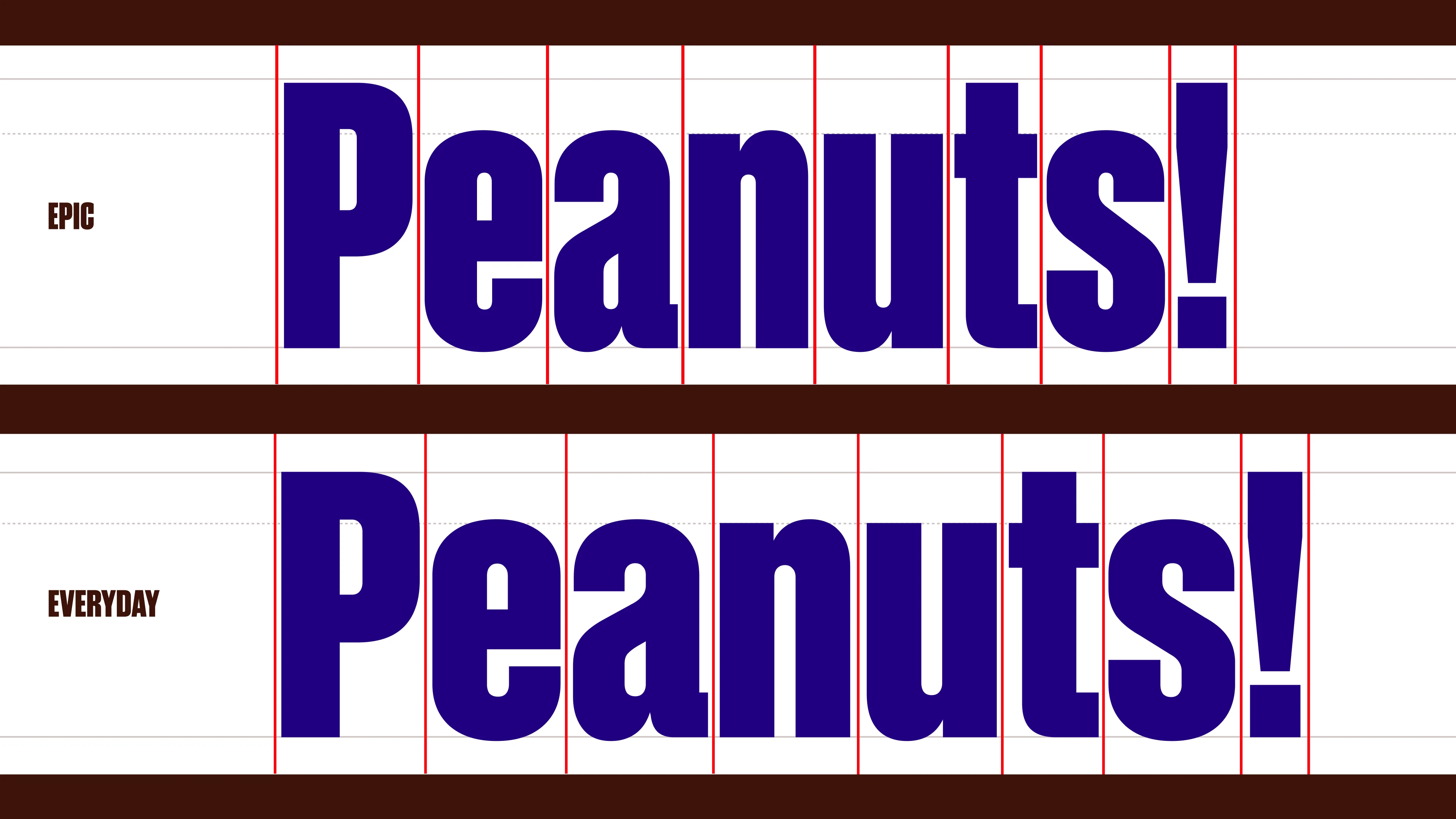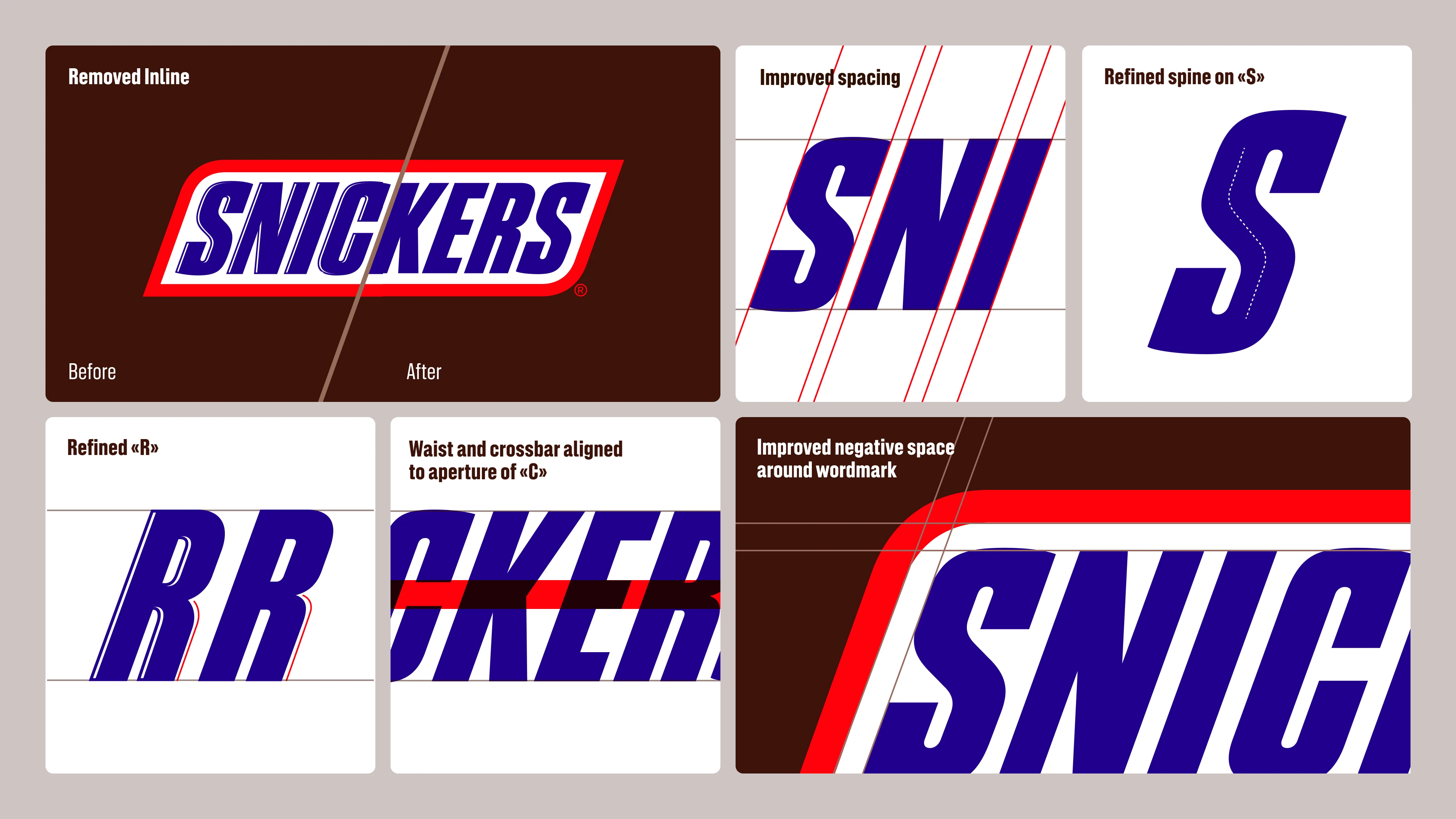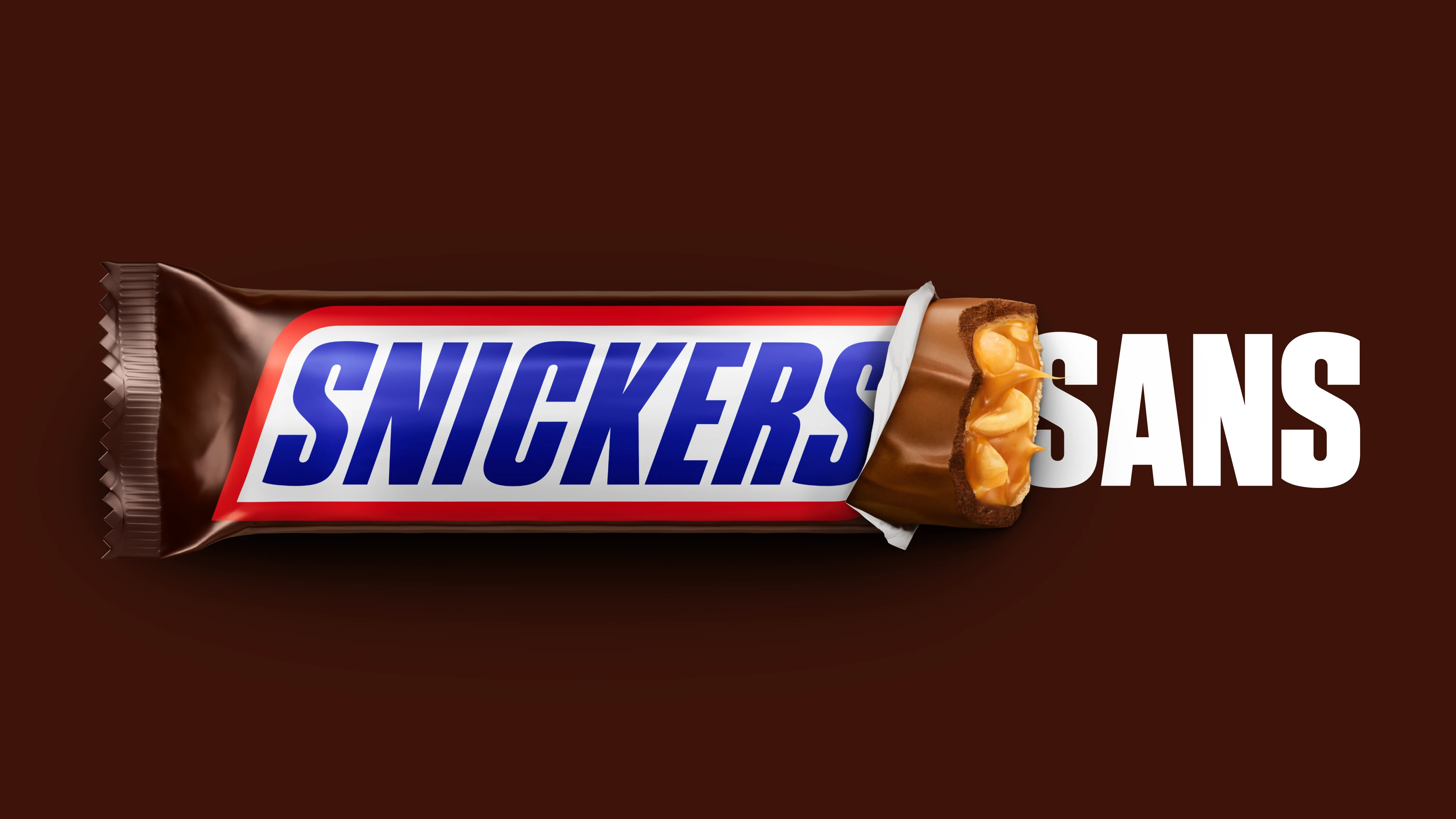
Snickers new custom font is deliciously nutty
Studio Drama gives the iconic brand a delectable revamp.
Snickers (or Marathon, as my elders like to remind me) has become a staple among the glossy chocolate-packed supermarket shelves. Launched in 1930, it boasts almost a century of confectionery goodness, which is why its latest project feels like a long time coming. We finally have a custom Snickers typeface.
A refined take on the classic American Gothic font family, Snickers Sans is an instantly recognisable typeface that captures the bold energy of the iconic chocolate treat. As one of the best logos in the confectionery sphere, Snickers' enduring logotype proves how effective a simple yet striking design can be in creating an identity that spans generations.
Created by type designers Studio Drama in collaboration with global branding agency JKR, the new typeface takes cues from the visual DNA of the Snickers wordmark. Inspired by the "distinctive spine of the 'S', the rhythm of the vertical strokes and the angled terminals," the brand's playful character is infused across the full alphabet of letterforms.
With both Epic and Everyday styles, Snickers Sans Display has the flexibility to be both casual or bold and punchy, transforming headlines, packaging and campaigns. Snickers Sans Text acts as an understated companion to the Display fonts, available in both Regular and Bold weights to ensure legibility and accessibility across the brand's copy.
The project also revamped Snickers' iconic logotype, refining spacing and structural relationships between letters, while tightening subtle details for an elevated yet subtle tweak. A clean take on its iconic identity, Studio Drama's revamp brings the brand into a confident new era while preserving its quintessential Snickers attitude.